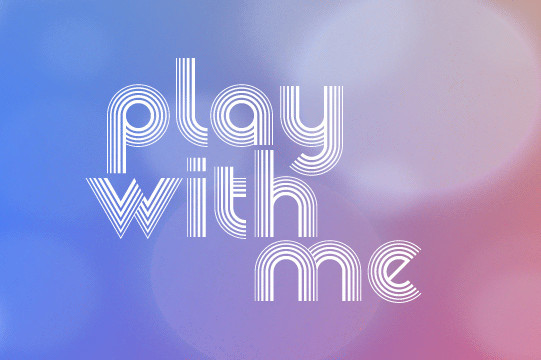
This is the FREE Veselka Font by Sergiy Tkachenko which is a modern and funky font that looks great in titles. It also comes with Ukranian script as well as a number of accents. For more of the work by Sergiy please visit: http://www.4thfebruary.com.ua/